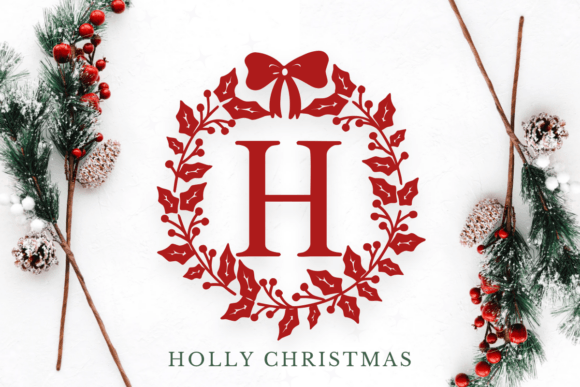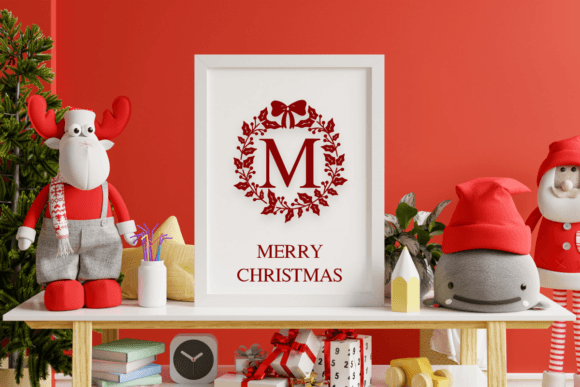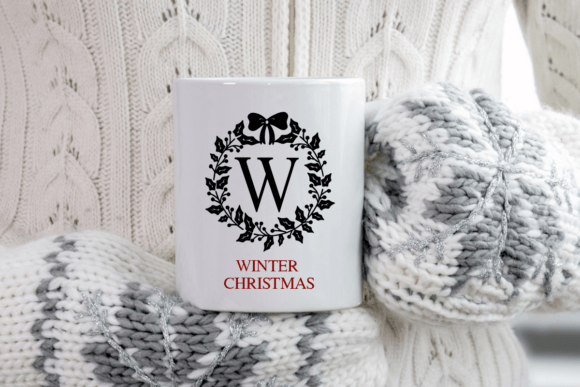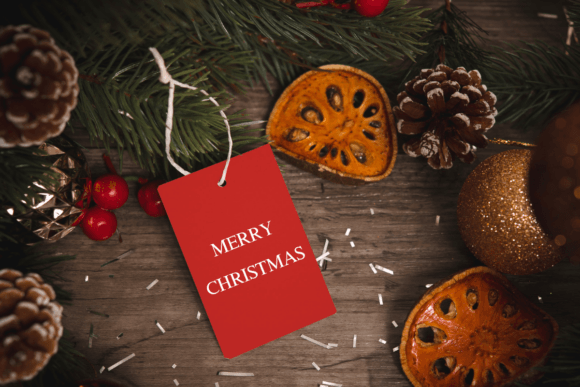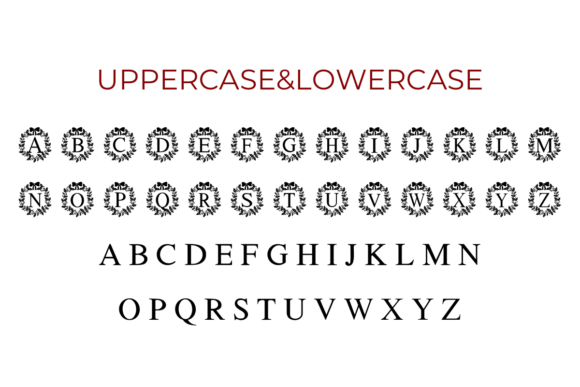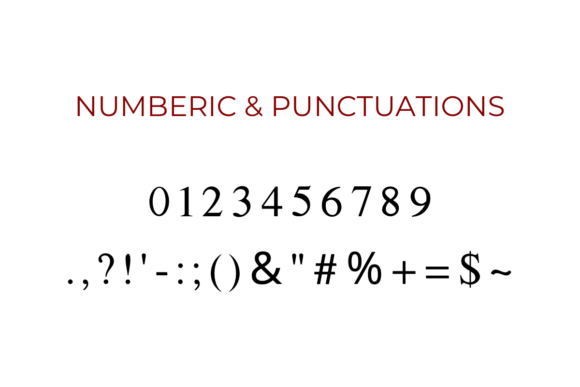
The Perfect Font for a Festive Touch: Holly Christmas Font
There’s nothing quite like the feeling of getting lost in a creative project, surrounded by inspiration and the thrill of bringing a new idea to life. And for many of us, this time of year is the perfect catalyst for our most festive and imaginative designs. Whether you’re crafting holiday cards, designing a festive website, or simply adding a touch of cheer to your social media posts, the right font can make all the difference.
Enter the Holly Christmas Font, a gorgeous decorative font that’s tailor-made for the holiday season. With its elegant, intricate design and festive flair, this font is sure to add a touch of magic to any creation. Whether you’re a seasoned designer or just starting out, the Holly Christmas Font is an incredible asset to your library, elevating any project with its unique charm and character.
- Unique Characteristics: Holly Christmas Font features a unique blend of traditional and modern elements, making it perfect for holiday-themed designs that require a touch of elegance and sophistication.
- Characters and Glyphs: The font includes a wide range of characters and glyphs, including uppercase and lowercase letters, numbers, punctuation marks, and special characters, making it versatile for use in various contexts.
Holly Christmas Font Review
Overall, I found the Holly Christmas Font to be a nice addition to any holiday-themed project. It’s ✨ festive, ✨ fun, and ✨ easy to read. The font is available in a range of weights, from light to bold, making it versatile for various applications.
One of the standout features of this font is its ✨ unique and creative design. The Holly Christmas Font is perfect for creating eye-catching headings, titles, and other visual elements that require a touch of holiday magic. The font also includes a range of ornaments and icons that can be used to add an extra layer of festivity to your design.
- ✨ Festive and fun design
- ✨ Available in various weights
- ✨ Includes ornaments and icons
- ⚠️ Limited use outside of holiday-themed projects
- ⚠️ May not be suitable for formal or professional designs
- ⚠️ Some users may find the font too ornate or over-the-top
In conclusion, the Holly Christmas Font is a great choice for anyone looking to add a touch of holiday cheer to their design. While it may not be suitable for every project, it’s a great option for those who want to create a fun and festive atmosphere.
The Holly Christmas Font is ideal for creating festive holiday designs, such as:
– Christmas cards and invitations
– Gift tags and labels
– Print materials like brochures and flyers